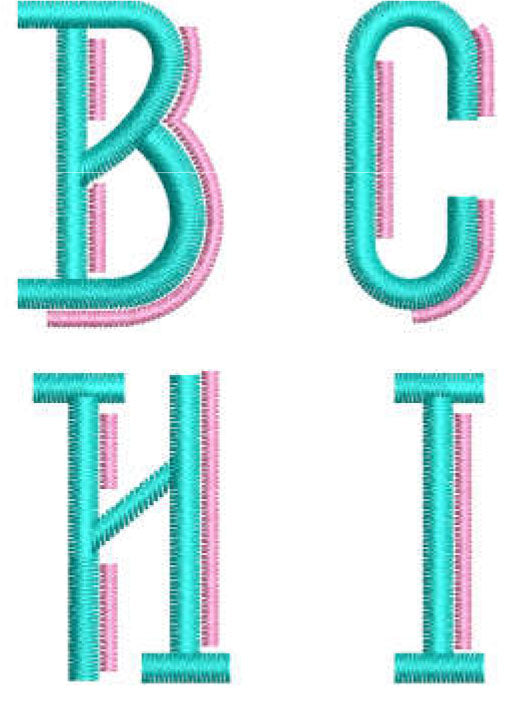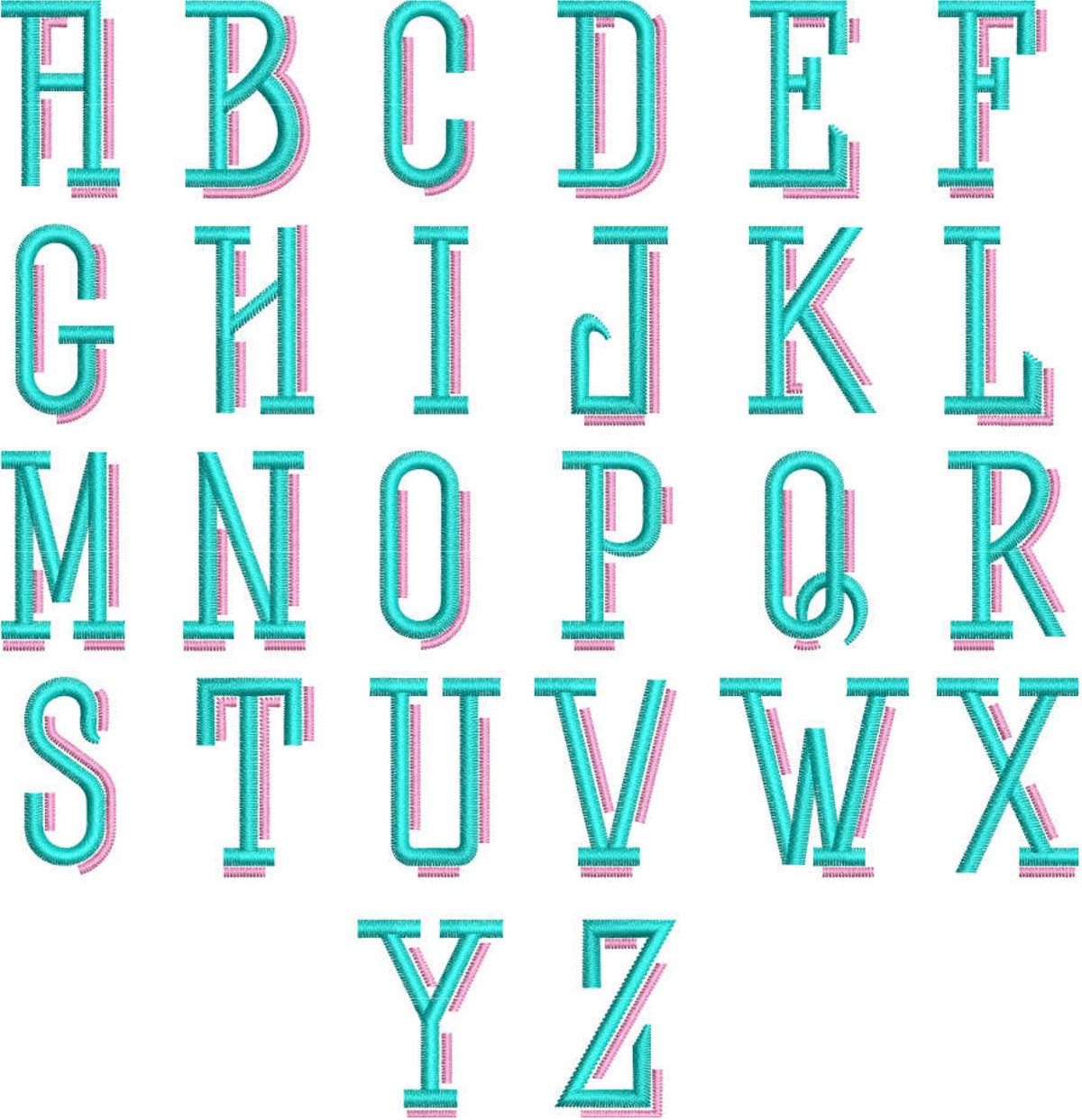
Shadow Block Embroidery Font
Create bold, dimensional embroidery with the Shadow Block font. The offset shadow effect adds a playful layered look to monograms, names, apparel, bags, hats, and personalized gifts.
- Great for monograms, names, clothing, accessories, and gifts
Bring a bright pop of dimension to your next embroidery project with this fun shadow-style lettering.